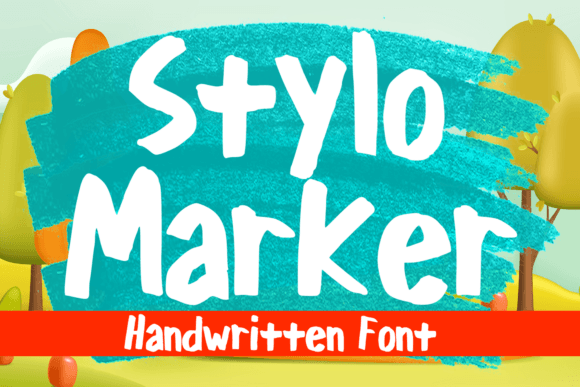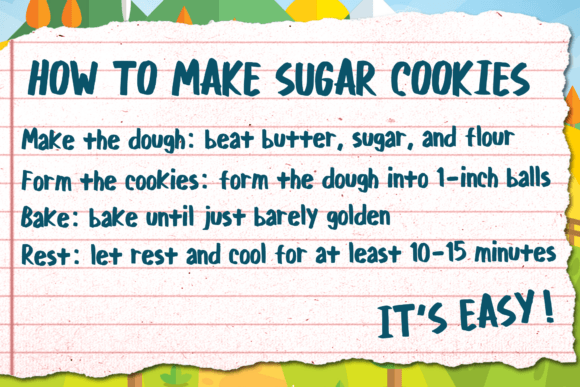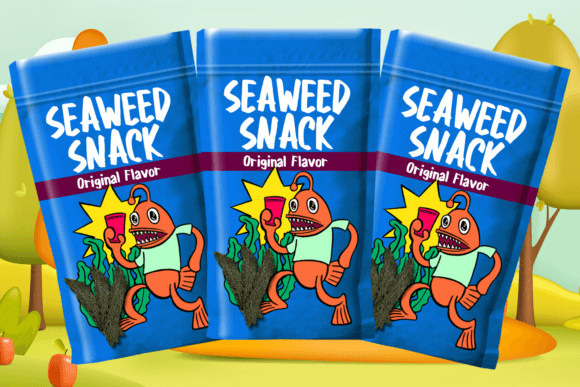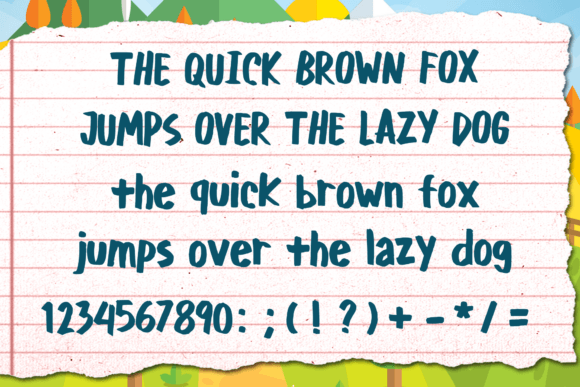
Stylo Marker Font
About the Stylo Marker Font
We are excited to introduce Stylo Marker Font, a must-have typeface for any serious designer. Stylo Marker is a cool bold hand lettered marker font. It will elevate a wide range of design projects to the highest level. You can use this font for many design ideas such as stickers, t-shirt designs, amazing logo designs, magazine or book covers, comics, cartoon drawings, and many more. This font will add a super cool touch to your designs!
Stylo Marker Font Usage Examples
Stylo Marker Font Example